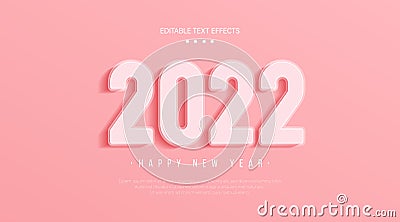
Happy new year 2022 text effect. Cute style vector numbers. Pink clean minimal style editable text effect. Modern simple font #231856842
Happy new year 2022 text effect. Cute style vector numbers. Pink clean minimal style editable text effect. Modern simple font creative design with shadow decoration. Vector illustration.